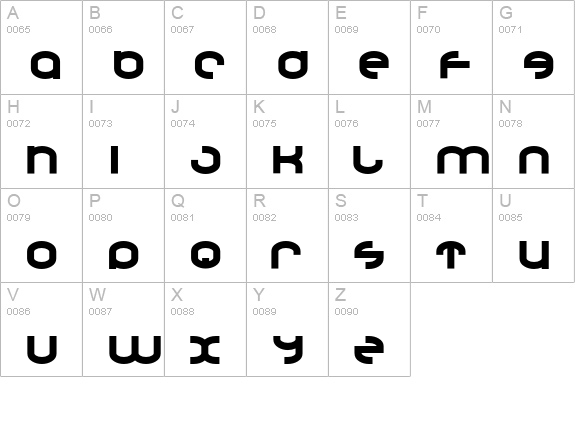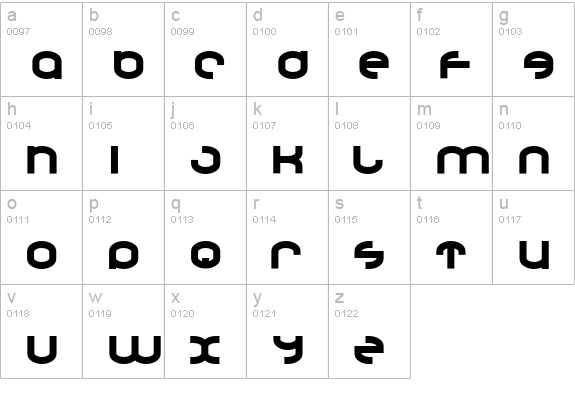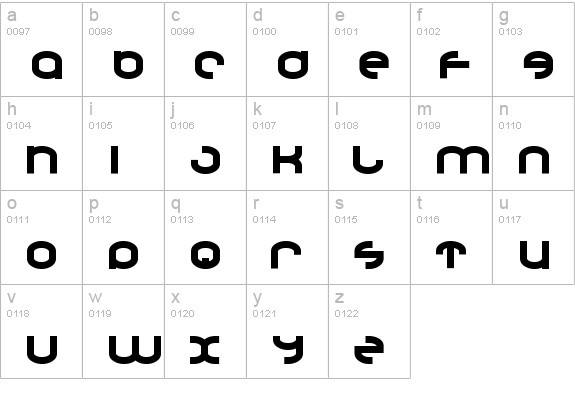
Droncat Font Details
Introducing Droncat font, a sleek and modern typeface that combines elegance with a touch of playfulness. This versatile font is perfect for a wide range of design projects, from branding and advertising to social media graphics and website design. Droncat font features clean lines and a contemporary aesthetic, making it ideal for both digital and print applications. The font's unique character set includes a full range of uppercase and lowercase letters, numbers, symbols, and special characters, giving you plenty of creative options to work with. Best of all, Droncat font is available for free download at FontsMarket.com. Whether you're a seasoned designer or just starting out, this font is a must-have addition to your collection. Don't miss out on the opportunity to enhance your projects with the stylish and eye-catching Droncat font today!